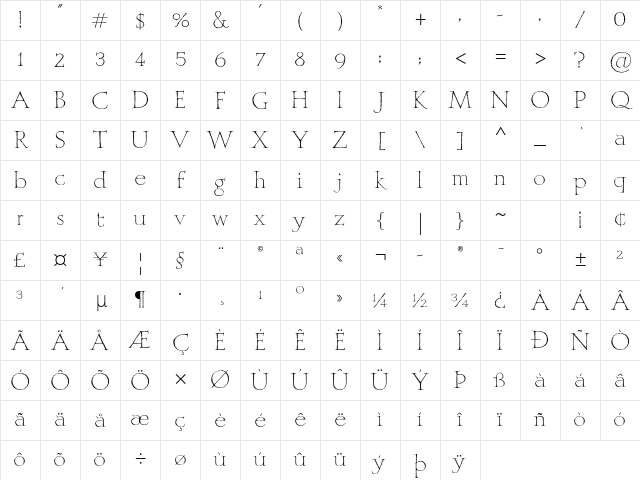
Mithras ITC Std Regular
Designer: Bob Anderton
Design Context for Mithras ITC Std
Mithras ITC Std is a composed and adaptable typeface that performs quietly and consistently across a wide range of design contexts.